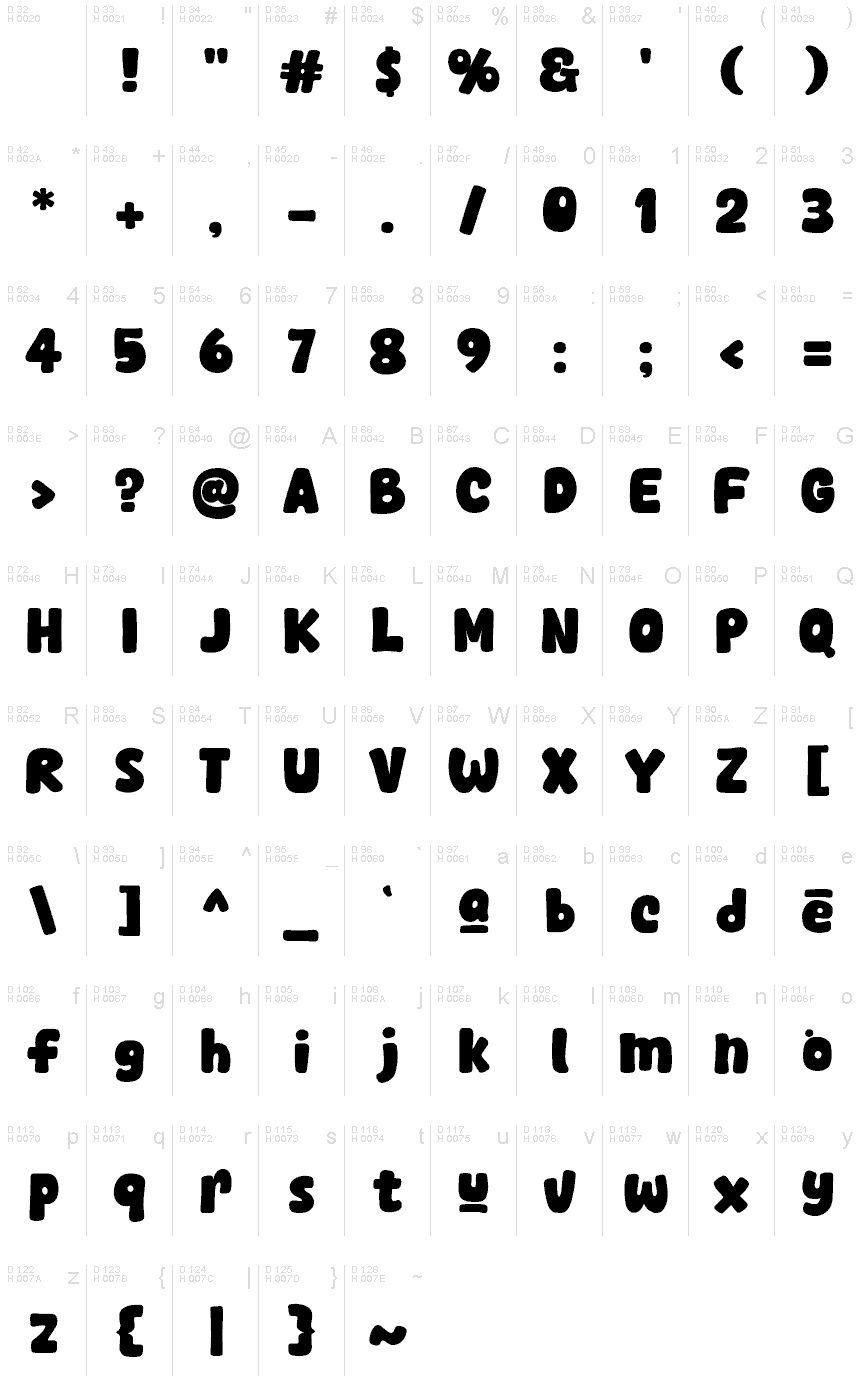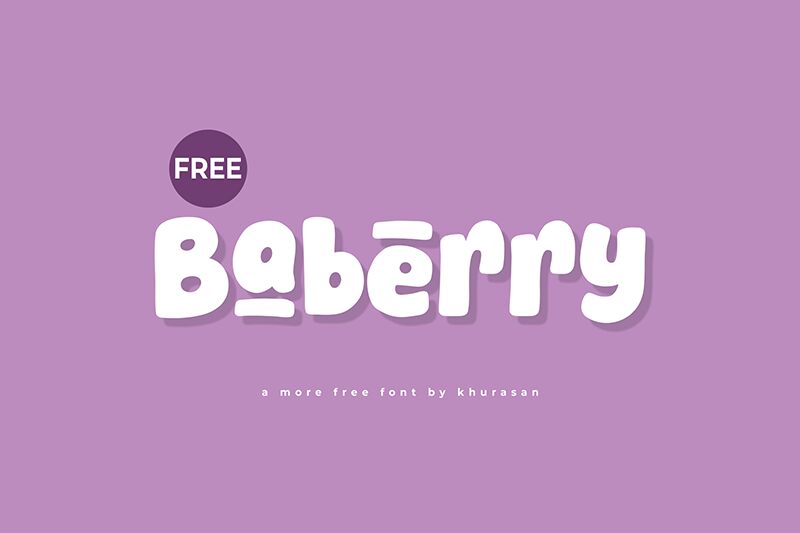
Baberry
Baberry font by Khurasan is a free cartoon display font with a bold body and personality. Mo character featured within the typeface has an organic rounded structure and outline for a casual friendly feel. Feelings of youthfulness and contemporary innovations are guaranteed from Baberry whose smooth appearance goes easy on the eyes of your audience.
Free your imagination by typing with Baberry to create playful children’s books, comic covers, or cartoon movie posters. Also consider this set of characters for colorful packaging designs, portfolios, photography magazines, social media posts, stories and reels templates as well as digital artwork captions.